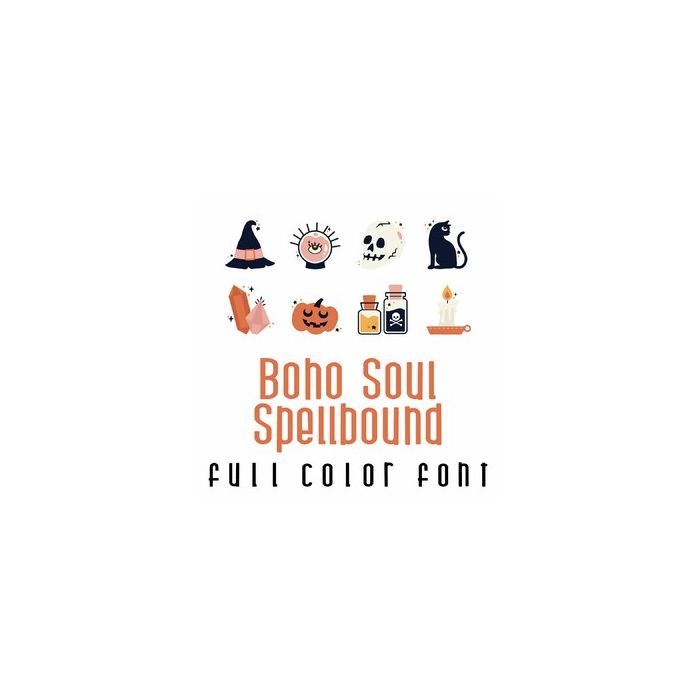
This fun full color doodlebat font features 26 boho Witchy Halloween style images perfect for cards, crafts, gifts, decor, planner stickers, scrap book pages and more!